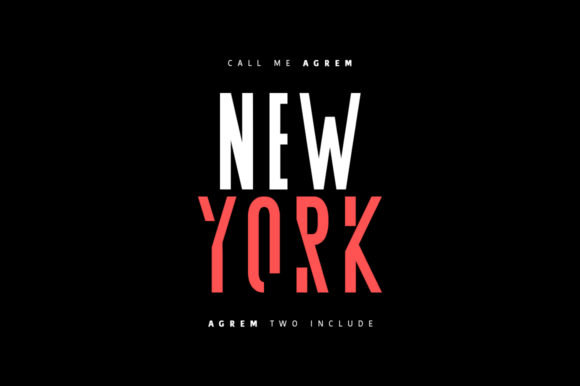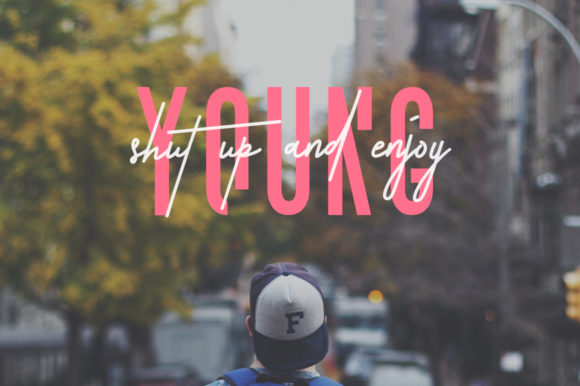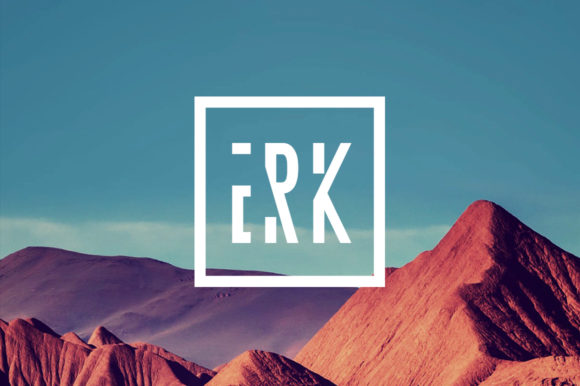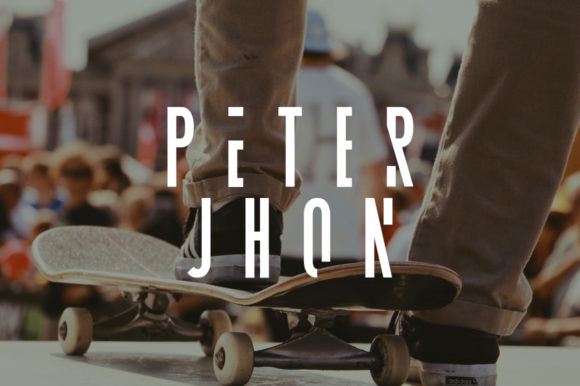
Introducing Agrem Font: A Strong and Captivating Sans Serif Typeface
In the world of typography, a good font can make all the difference in the success of a design project. Whether you’re a graphic designer, a crafty DIY enthusiast, or a digital artist, finding the right font can be a daunting task. That’s why we’re excited to introduce Agrem Font, a strong and captivating sans serif typeface that’s perfect for a wide range of applications.
What is Agrem Font?
Agrem Font is a modern sans serif font that’s designed to make a statement. Its clean lines, bold strokes, and geometric shapes make it a versatile typeface that’s suitable for headlines, body text, and everything in between. Agrem is a carefully crafted font that’s meant to be noticed, and its unique character is sure to elevate your design projects to the next level.
Key Features of Agrem Font
So, what makes Agrem Font so special? Here are some of its key features:
- Strong and Captivating: Agrem Font is designed to grab attention and make a lasting impression. Its bold strokes and geometric shapes give it a confident and modern look that’s perfect for headlines and titles.
- Versatile: Agrem Font is not just limited to headlines and titles. Its clean lines and simple shapes make it suitable for blocks of text, and its legibility ensures that your message gets across clearly.
- Highly Legible: Agrem Font is designed to be easy to read, even at small sizes. This makes it perfect for body text, captions, and other applications where legibility is crucial.
- Multi-Platform: Agrem Font is designed to work seamlessly across different platforms and mediums. Whether you’re designing for web, print, or moving images, Agrem Font will look spectacular.
Use Cases for Agrem Font
So, what can you use Agrem Font for? The possibilities are endless! Here are some ideas to get you started:
- Headlines and Titles: Agrem Font is perfect for creating bold and eye-catching headlines and titles. Use it to grab attention and draw the reader in.
- Body Text: Agrem Font’s legibility and clean lines make it suitable for blocks of text. Use it for articles, blog posts, and other written content.
- Logos and Branding: Agrem Font’s unique character makes it perfect for logos and branding. Use it to create a memorable and recognizable brand identity.
- Advertising and Marketing: Agrem Font is designed to grab attention and make a lasting impression. Use it for advertising and marketing materials, such as brochures, flyers, and posters.
Why Choose Agrem Font?
With so many fonts to choose from, why should you choose Agrem Font? Here are some reasons why:
- Unique Character: Agrem Font has a unique character that’s sure to make your design projects stand out.
- High-Quality Design: Agrem Font is carefully crafted with attention to detail, ensuring a high-quality design that’s perfect for professional applications.
- Versatility: Agrem Font is versatile and can be used across different platforms and mediums.
- Easy to Read: Agrem Font is designed to be easy to read, even at small sizes.
In conclusion, Agrem Font is a strong and captivating sans serif typeface that’s perfect for a wide range of design applications. Its unique character, versatility, and high legibility make it an excellent choice for designers, crafters, and digital artists. Whether you’re looking for a font for headlines, body text, or logos and branding, Agrem Font is sure to impress. So why wait? Try Agrem Font today and take your design projects to the next level!